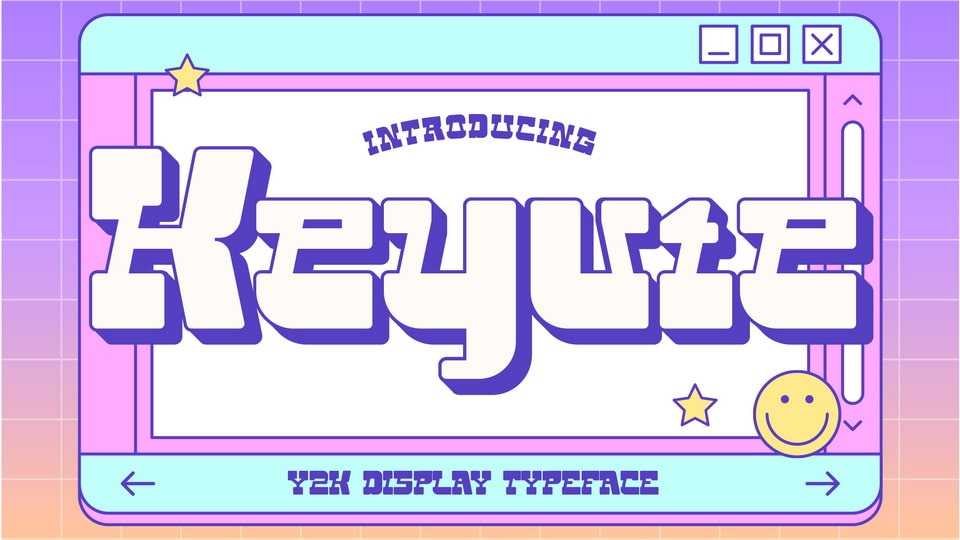
Download Keyute font, a bold and futuristic display typeface inspired by Y2K aesthetics. Its geometric letterforms feature sharp edges and angular shapes, evoking a sense of energy and dynamism.
Designer: Dryy.type